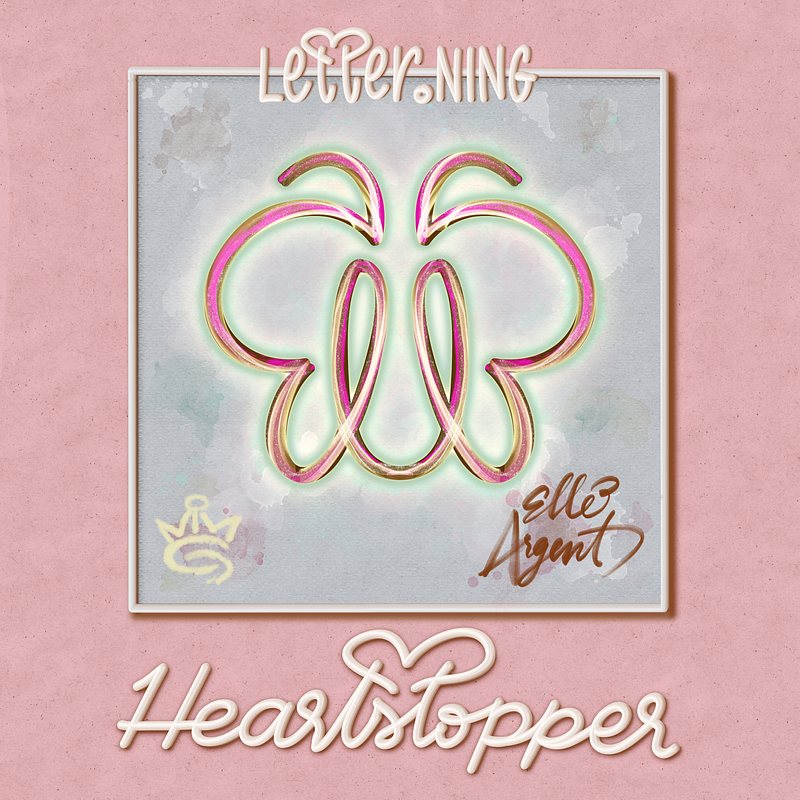
The Pride Month Lettering 00005-Elle Argent from Heartstopper
I like Elle’s storyline in Heartstopper, transitioning to an all-girls school and finding a place where she belongs as a trans girl, in a much more uplifting way than other typical trans characters on screen. I also love her passion for art. To capture all these aspects of Elle, I transformed her name into a butterfly in an artistic style. The butterfly symbolizes her life transformation and how art serves as a form of self-expression for her.